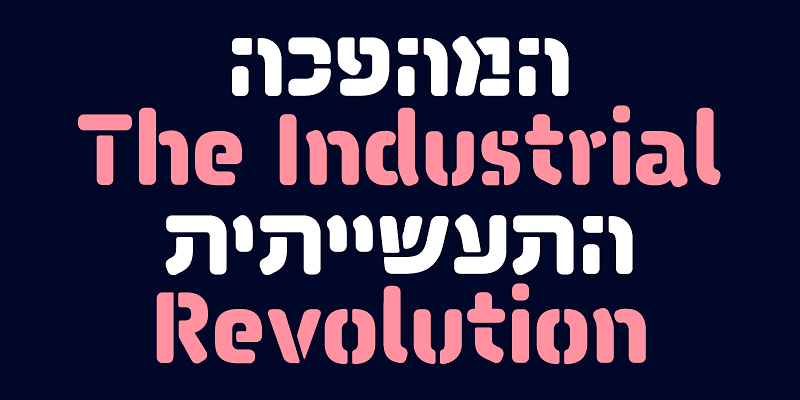
Pauza Stencil Font Free Download is a bold, geometric stencil typeface designed to stand out with its sharp angles and clean, structured lines. Perfect for projects that require an industrial, strong, and impactful aesthetic, Pauza Stencil is ideal for branding, posters, signage, product packaging, and any design that needs to convey strength, modernity, and precision.
The Pauza Stencil Font features a unique stencil effect, with cut-out sections in the letterforms that give it an edgy, utilitarian look. It is perfect for designs that aim to capture attention while maintaining excellent legibility, making it great for both display purposes and functional text.